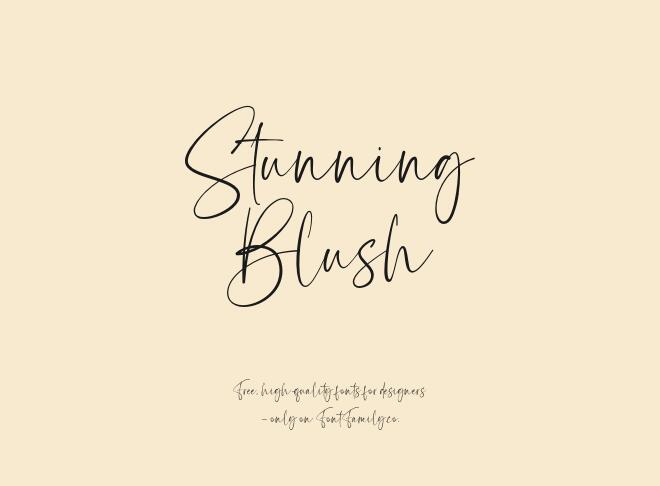
Stunning Blush Font
Welcome to the Stunning Blush Font, a whimsical and playful script typeface that exudes charm and elegance. This handwritten font is perfect for creating personalized, intimate designs like wedding invitations, heartfelt quotes, or logo designs. Compared to other fonts, Stunning Blush Font offers a more relaxed and informal style, making it an excellent choice for brands that want to convey a sense of warmth and friendliness. Its elegant curves and playful letterforms make it stand out in any design. From social media graphics to packaging designs, this font is versatile and easy to incorporate. It's a great choice for designers looking to add a touch of sophistication and playfulness to their work.